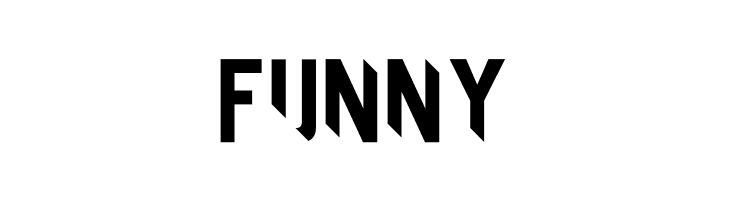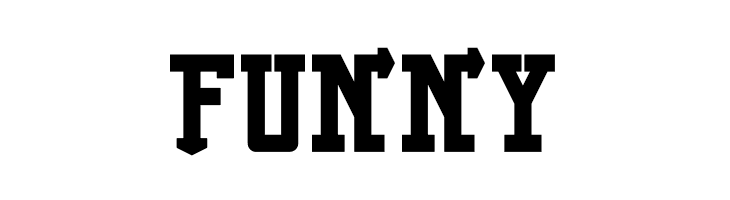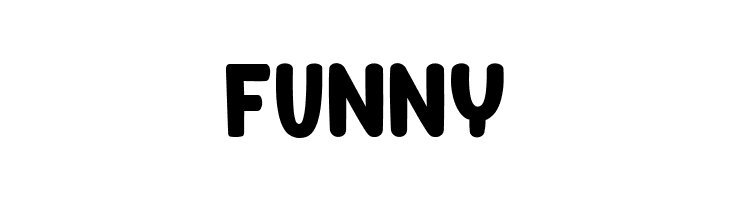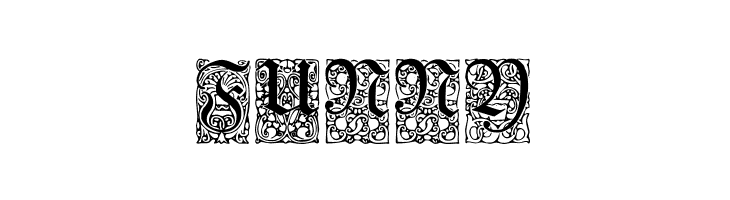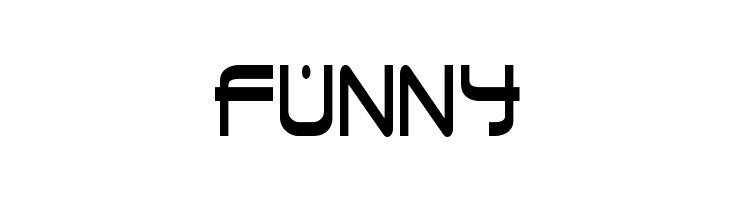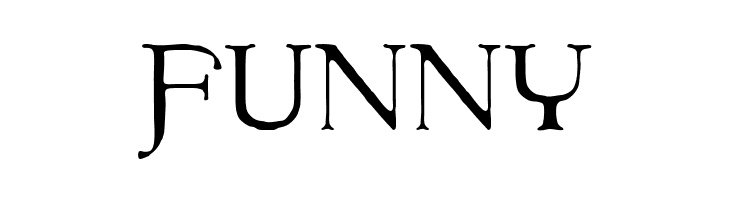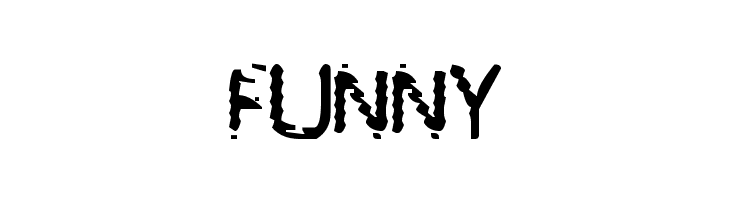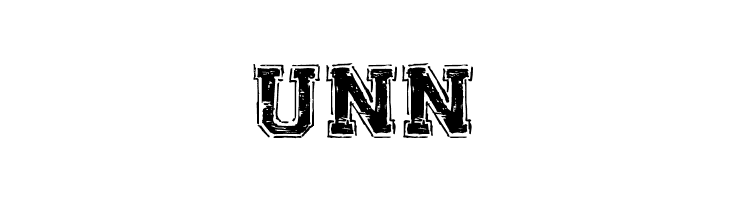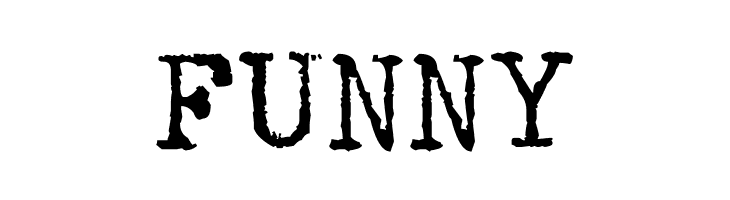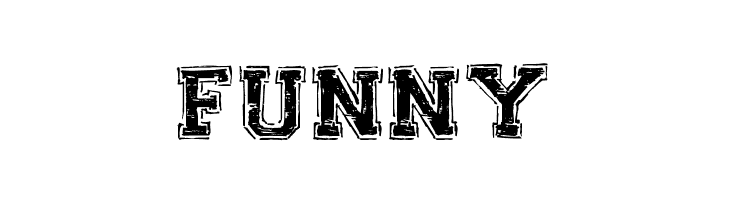
Abstract brushstroke marks with no readable characters.
A bold, distressed stencil-style font with an industrial feel.
A bold, futuristic font with a digital, pixelated aesthetic.
A bold, chunky, and playful font with a modern decorative style.
A bold, geometric font with a modern, industrial aesthetic.
A bold, edgy font with a cut-out, collage-like appearance.
A vintage, typewriter-inspired font with a textured, worn appearance.
A geometric, futuristic font with angular lines and bold patterns.
A bold, textured font with a distressed, vintage style.
A bold, distressed font with a vintage, textured appearance.
A bold, decorative font with vintage Western-inspired elements and arrow-like serifs.
An ornate and decorative font with intricate blackletter-inspired designs.
A bold, angular font with geometric shapes and sharp edges.
A whimsical calligraphic font with elegant, flowing strokes and decorative flourishes.
A bold, geometric font with rounded edges and a modern look.
A bold, playful font with rounded edges and a cohesive, friendly style.
A playful, hand-drawn font with bold outlines and textured interiors.
A bold, decorative font with a hand-drawn, vintage collegiate style.
A bold, geometric font with sharp angles and modern cutouts.
A bold, geometric font with a modern and impactful style.
A bold, decorative font with a distressed, vintage appearance.
A dynamic and expressive font with erratic, sharp strokes and a chaotic artistic style.
A geometric, modular font with a bold, modern design.
A geometric, modular font with a bold, modern aesthetic.
A bold, playful font with a 3D shadow effect and rounded, irregular characters.
A bold, glitch-inspired font with a modern, distressed look.